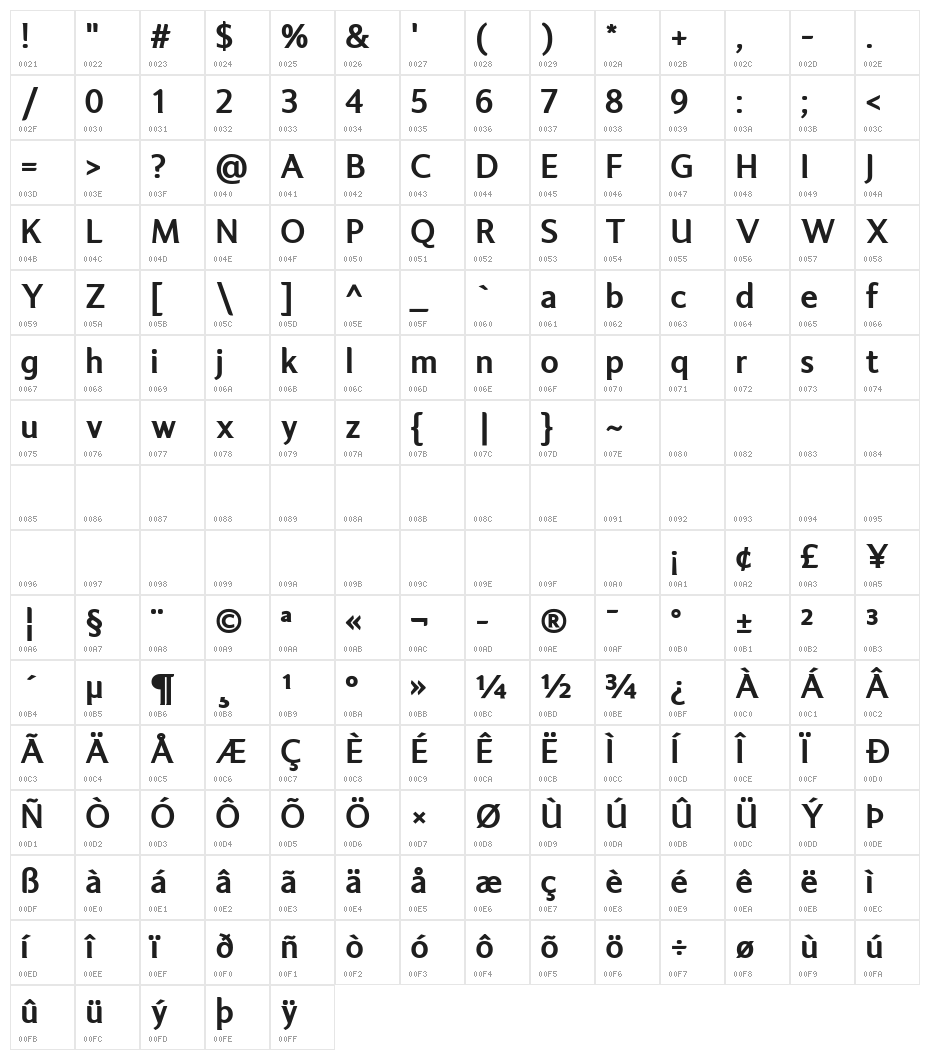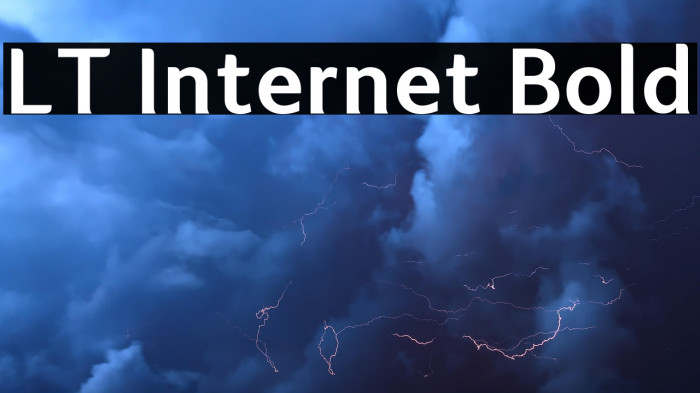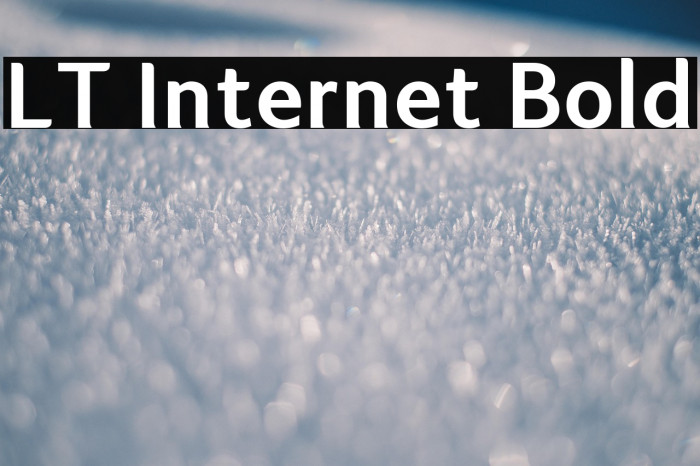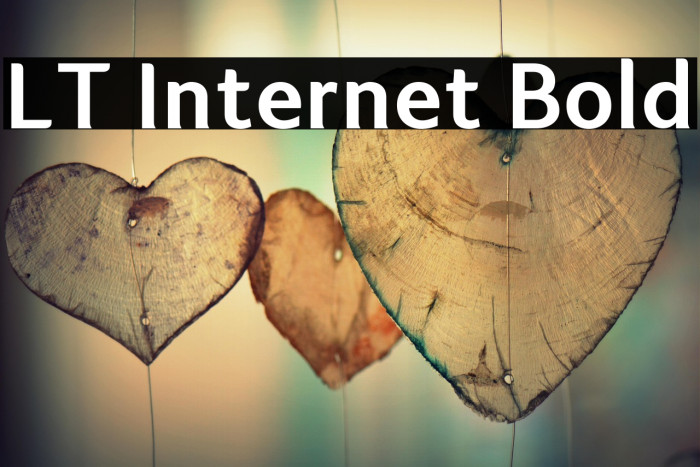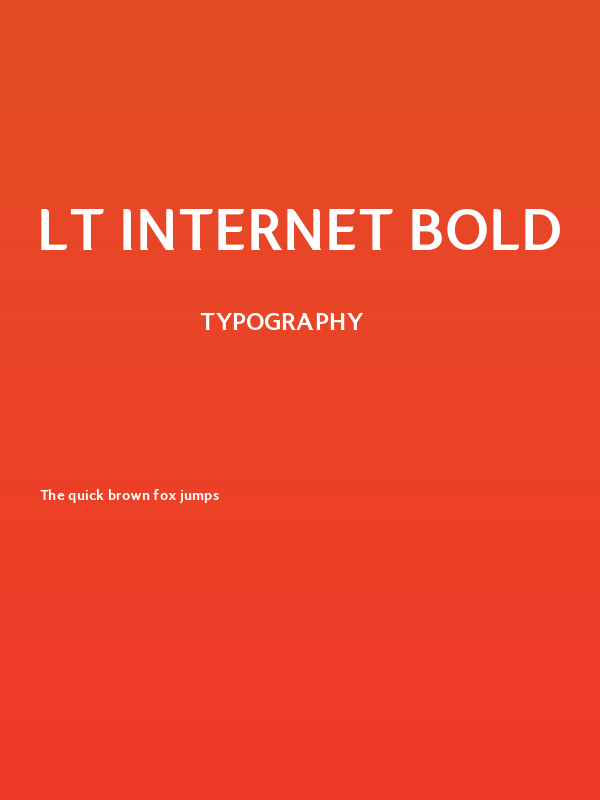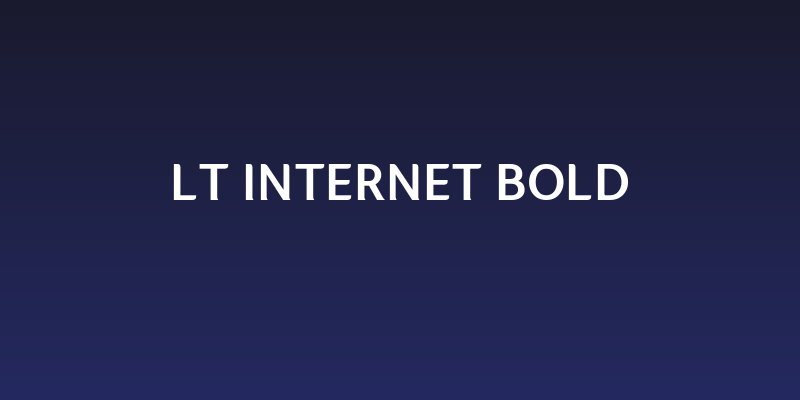
LT Internet Bold Font
LT Internet Bold Description
This font features a clean and modern sans-serif design with a bold weight, making it highly legible and suitable for various digital and print applications. The characters are well-proportioned, with consistent stroke widths that provide a balanced and harmonious appearance. The uppercase and lowercase letters are distinct and clear, ensuring readability across different sizes. The numerals are straightforward and align well with the overall style, while the special characters are designed to complement the text seamlessly. This font's simplicity and clarity make it versatile for a wide range of uses.